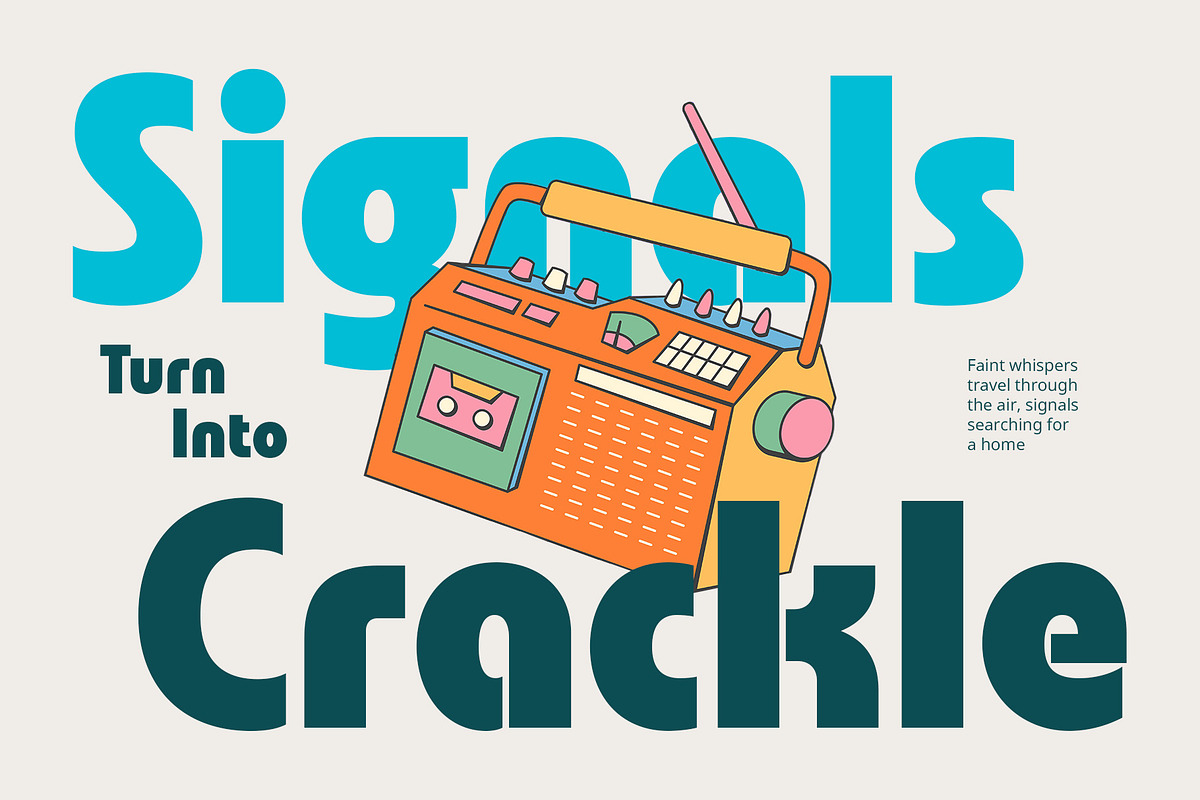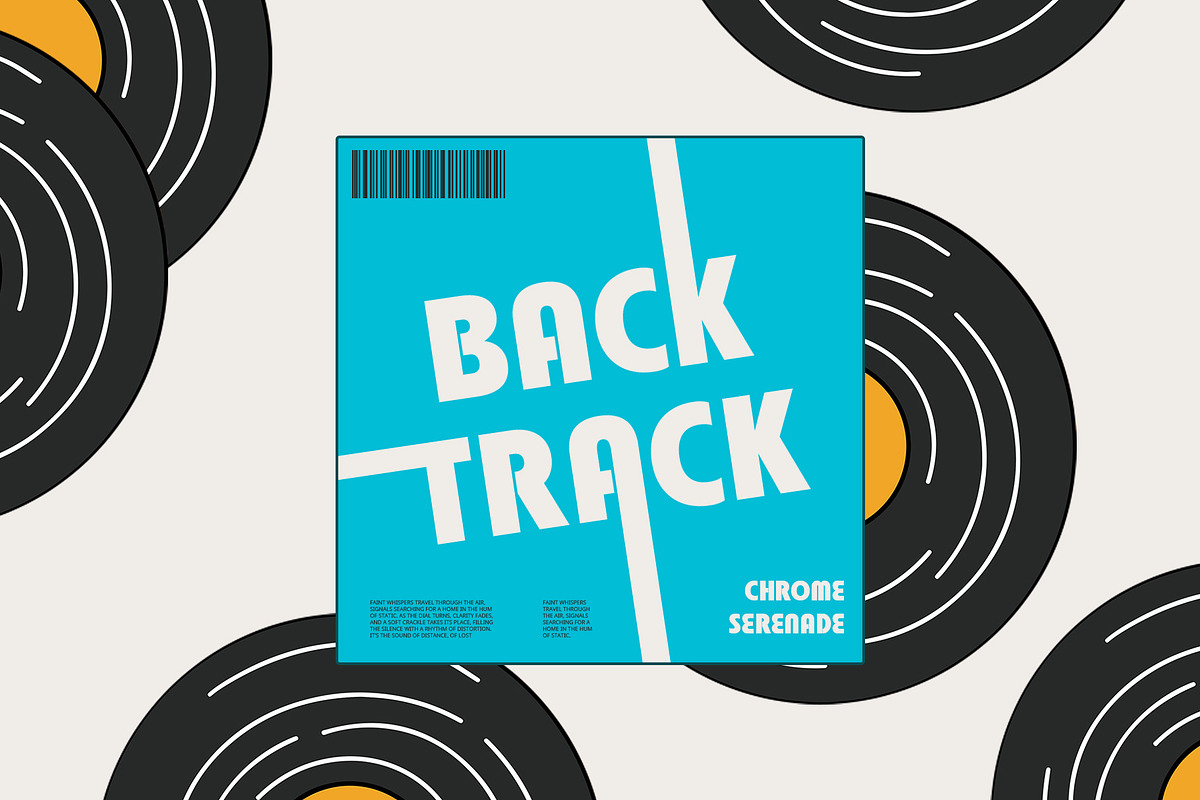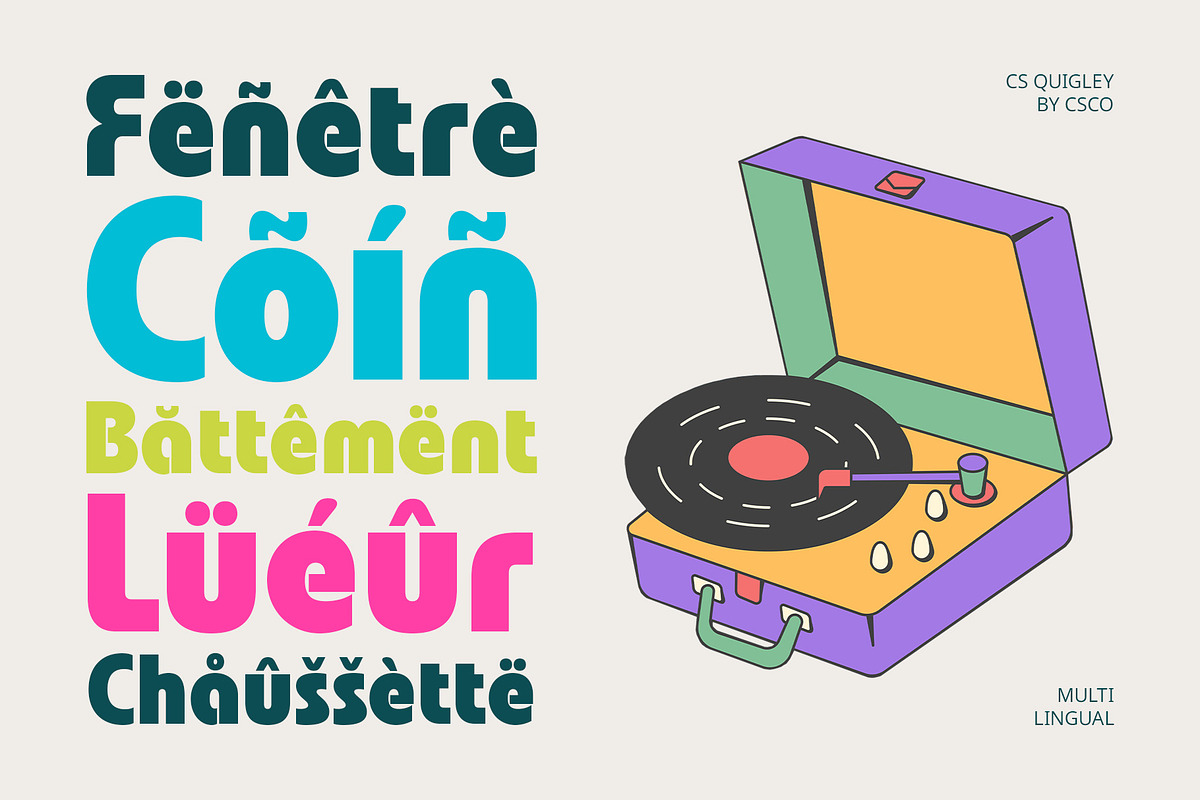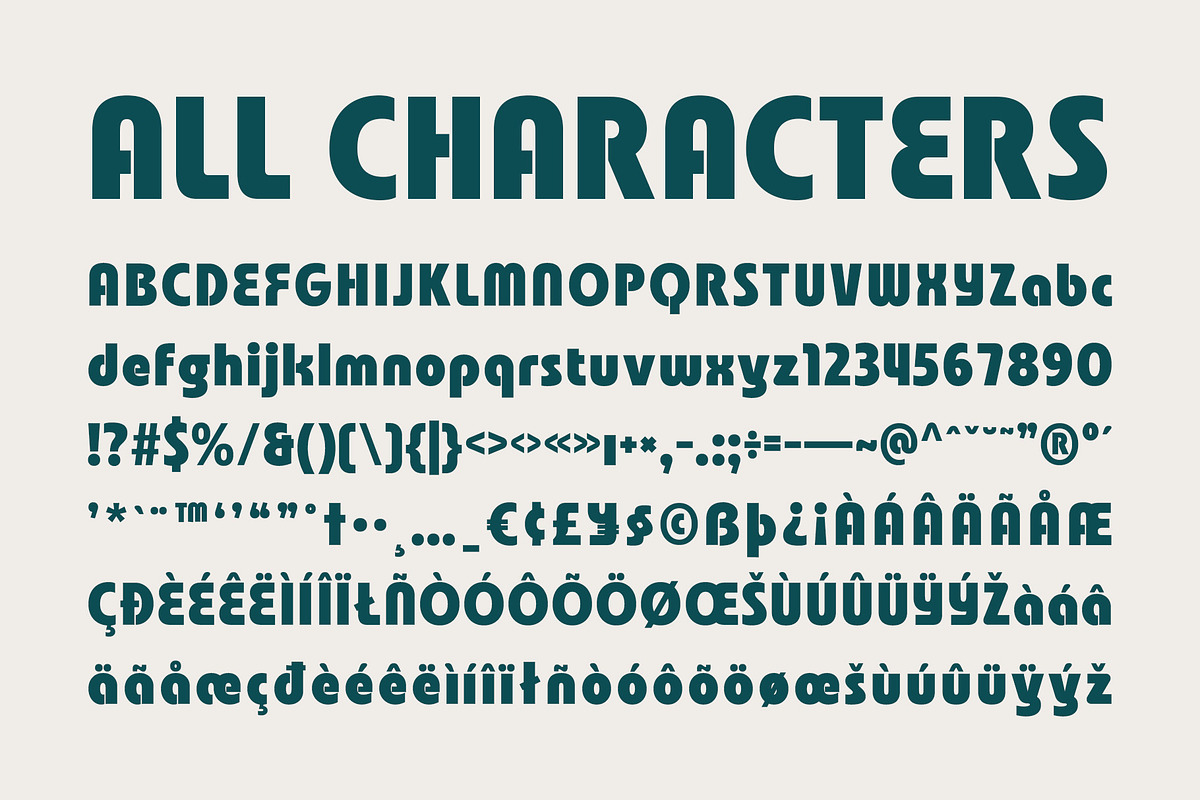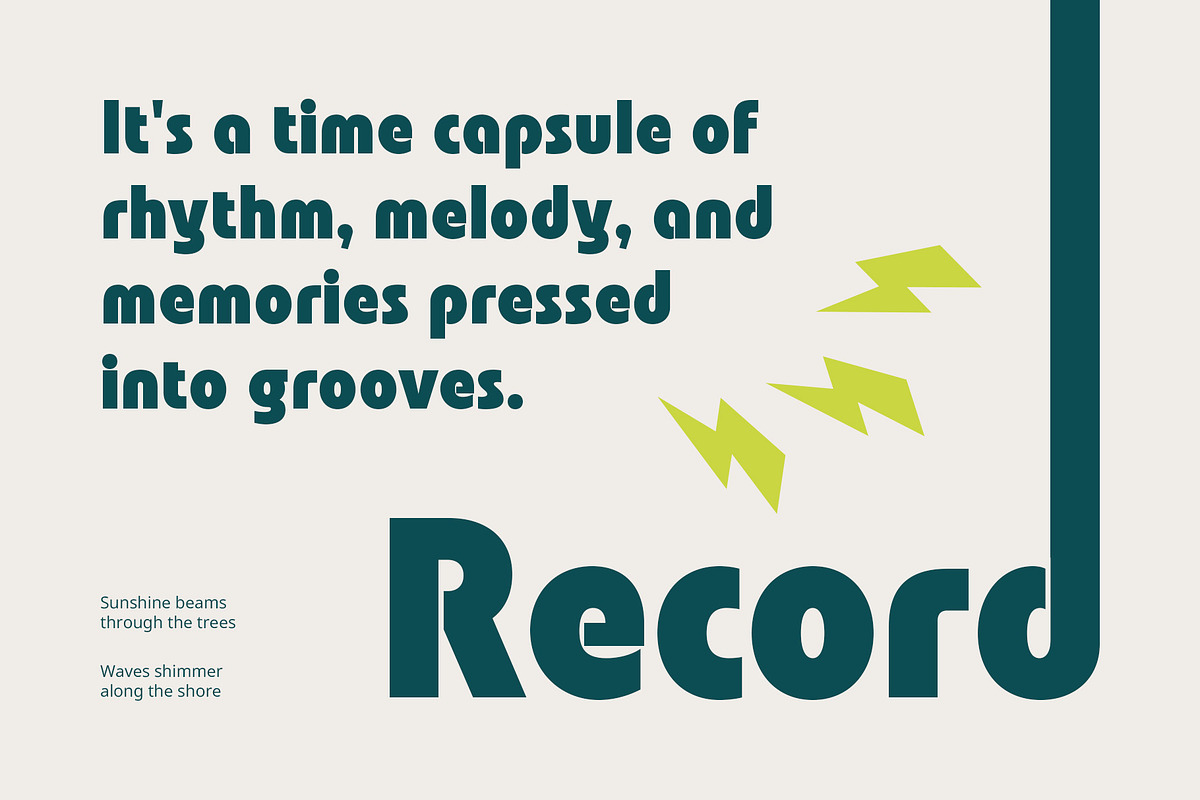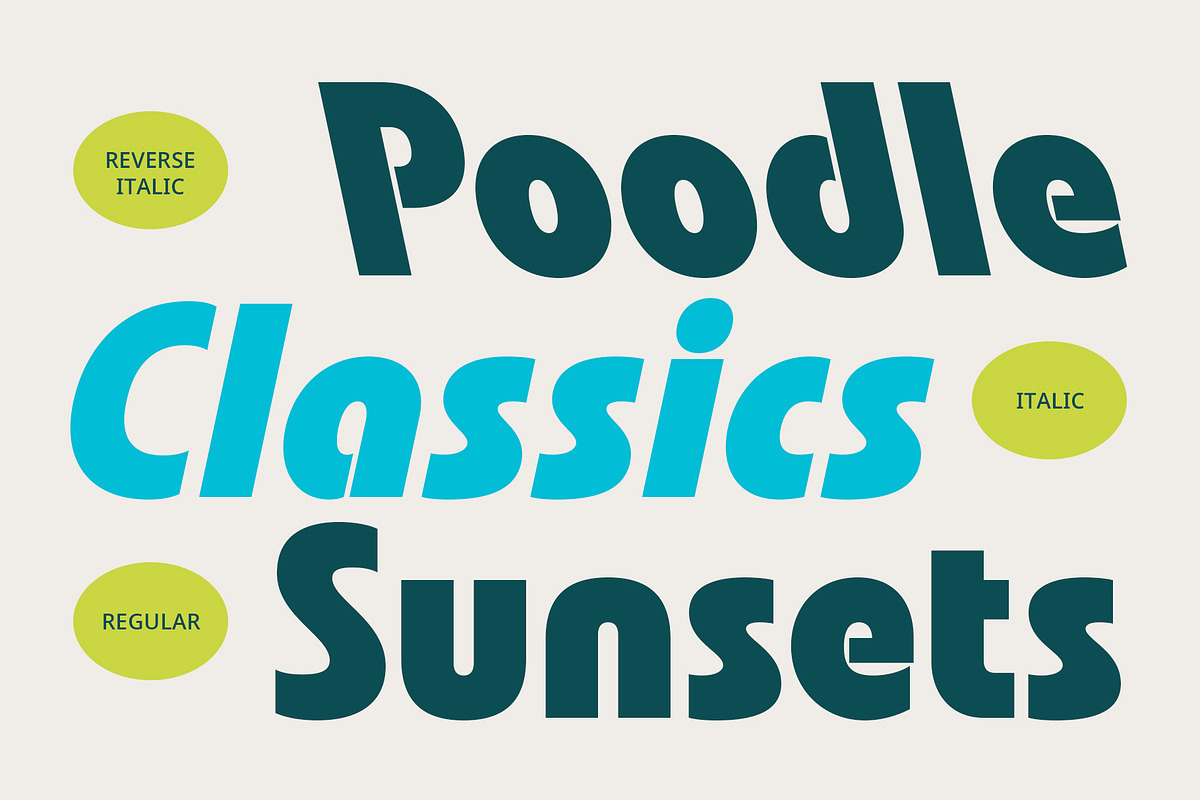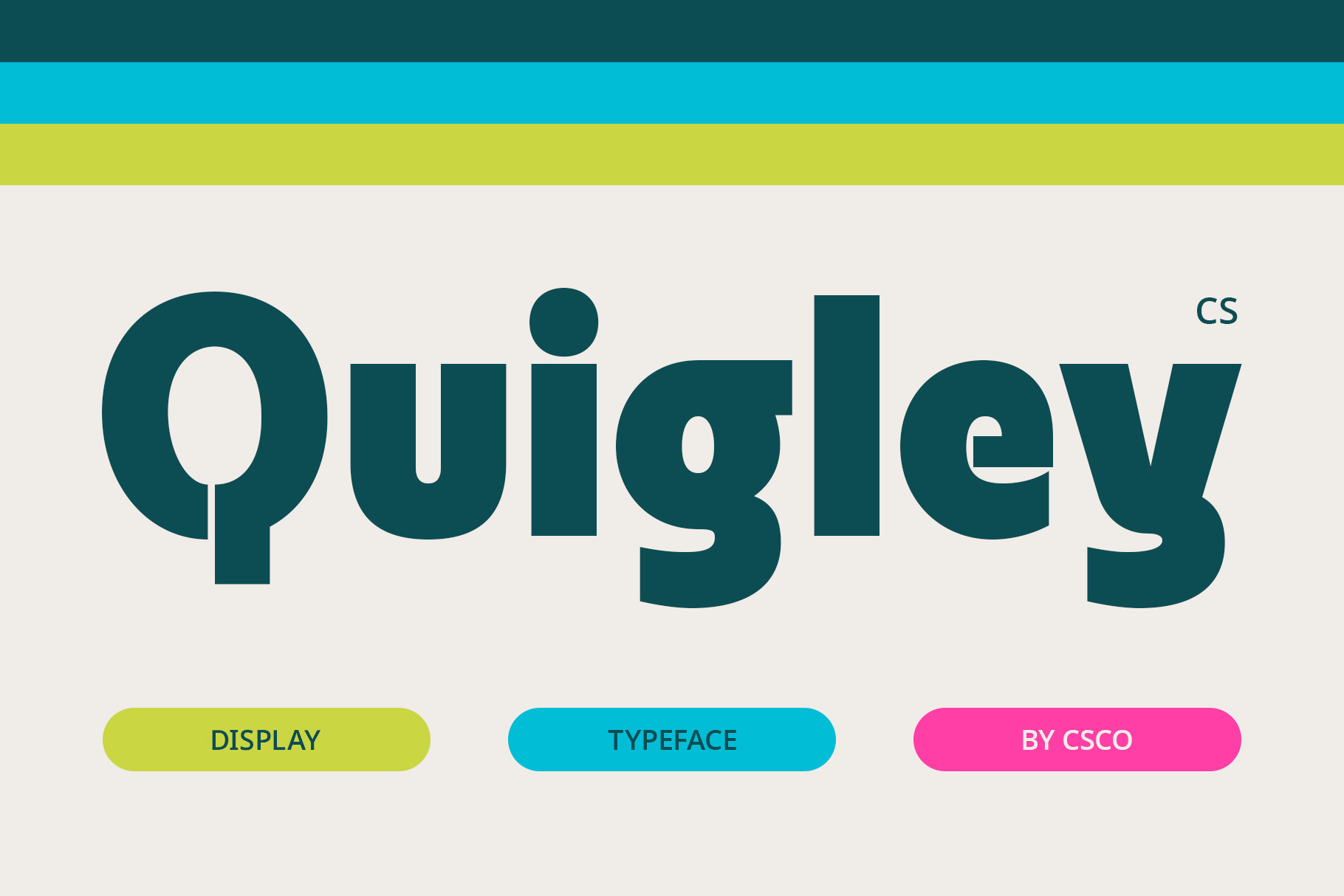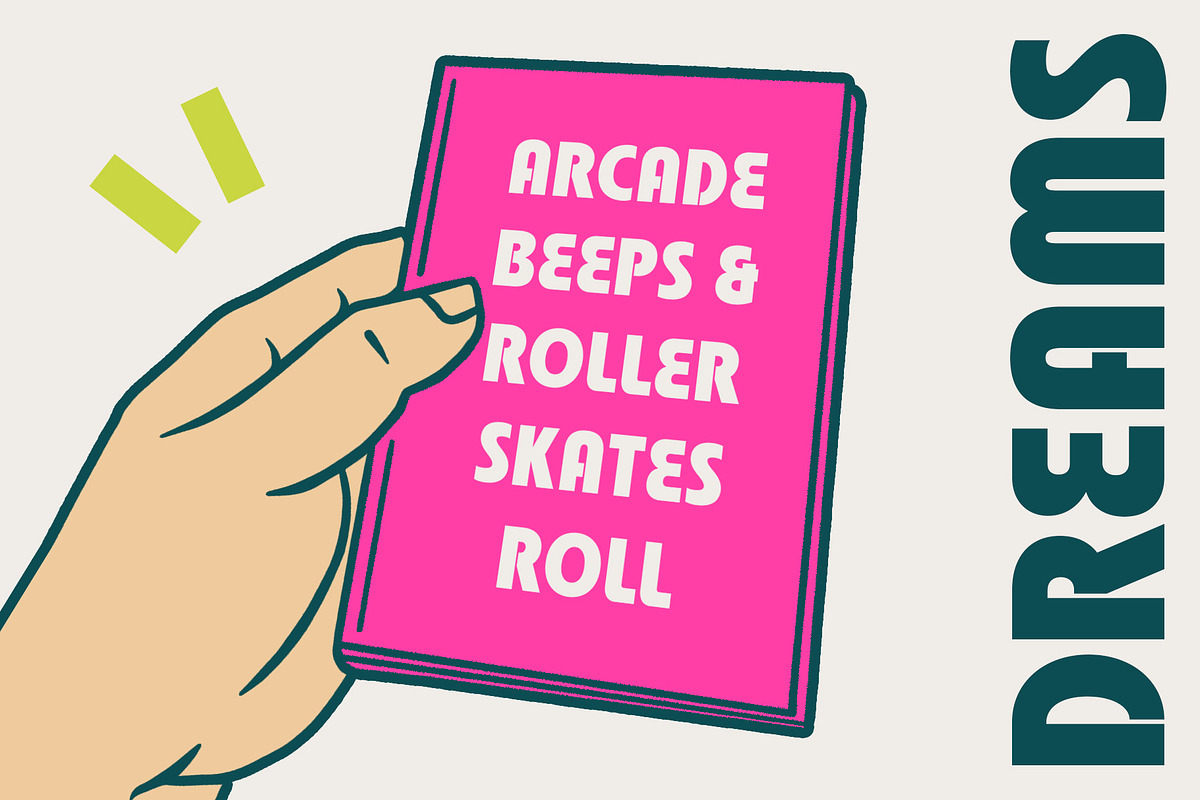
CS Quigley – Bold Font
CS Quigley – A Bold and Funky Display Font
Strong Letterforms with Smooth Curves CS Quigley is a bold display sans-serif font that embodies strength, personality, and a fun-loving spirit. Featuring thick, confident strokes with smooth curves, it creates a dynamic and inviting visual appeal. Its solid structure with a touch of playfulness makes it the perfect choice for bold headlines, striking logos, and standout branding.
Funky, Cheerful, and Retro Appeal Bringing together retro charm and modern energy, CS Quigley exudes a vibrant, funky character that instantly grabs attention. Its rounded letterforms and lively design make it a great fit for cheerful branding, playful advertising, and nostalgic-inspired packaging.
Versatile for a Wide Range of Designs Designed for maximum versatility, CS Quigley adapts effortlessly to various creative projects. Its bold, smooth curves ensure excellent readability, making it ideal for posters, social media graphics, merchandise, children’s products, and creative marketing campaigns. The font’s quirky yet structured look makes it a go-to choice for designers seeking a bold and stylish statement.
Make Your Designs Stand Out CS Quigley is more than just a font—it’s an expression of confidence and creativity. Whether used for retro themes, contemporary branding, or fun and artistic projects, it injects energy, personality, and an unmistakable presence into any design.
- CS Quigley Regular
- CS Quigley Italic
- CS Quigley Reverse Italic